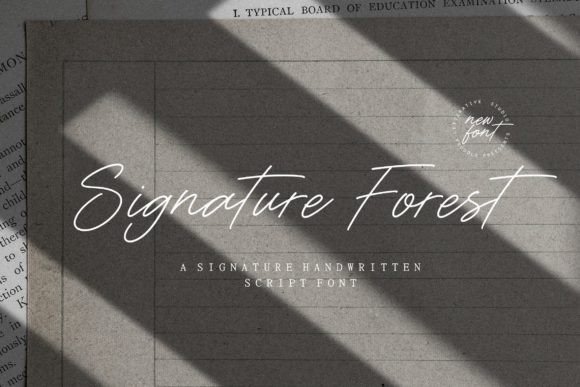
Introducing Signature Forest, the ultimate font for elevating your designs and captivating your audience! Crafted by the talented team at letterativestudio, this modern and monoline signature script font is here to revolutionize your creative endeavors.
With its sleek and sophisticated design, Signature Forest adds a touch of elegance to any project. Whether you're a digital designer, crafter, presenter, or simply someone who wants to make a lasting impression with greeting cards, this font is your perfect companion.
Signature Forest is not just another font; it's a versatile tool that will enhance your work and help you stand out from the crowd. Its clean and crisp lines create a sense of professionalism, making it ideal for clean UI designs and sleek branding projects.
But what truly sets Signature Forest apart is its ability to evoke emotions and create a connection with your audience. This font has the power to make your words come alive, adding a personal touch and an intimate feel to your designs. From heartfelt quotes to romantic wedding invitations, Signature Forest will effortlessly convey the right emotions.
Imagine the impact of your presentations when you use Signature Forest to bring your ideas to life. With its captivating curves and unique strokes, this font will make your slides shine and leave a lasting impression on your audience. They won't be able to take their eyes off your remarkable typography!
Downloading Signature Forest means unlocking endless possibilities for your creative ventures. Its extensive character set includes ligatures, alternates, and swashes, allowing you to create stunning typographic compositions with ease. Let your imagination run wild and watch as your designs come to life!